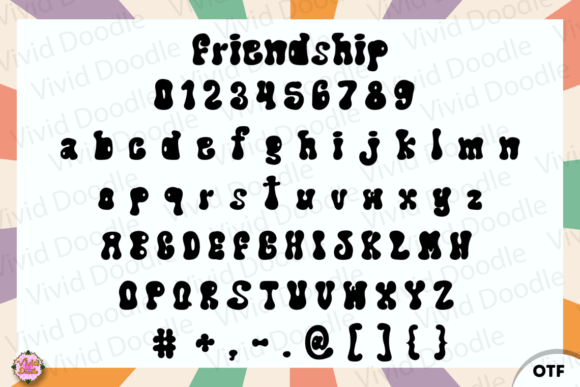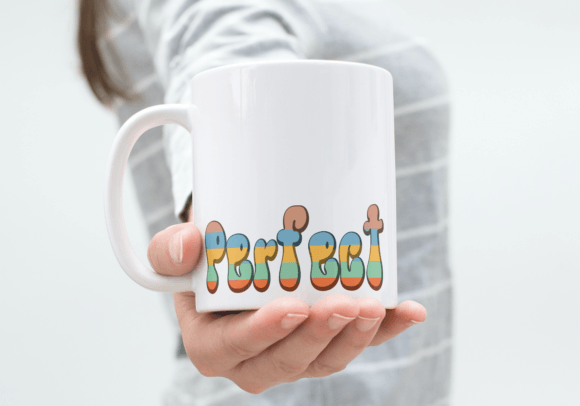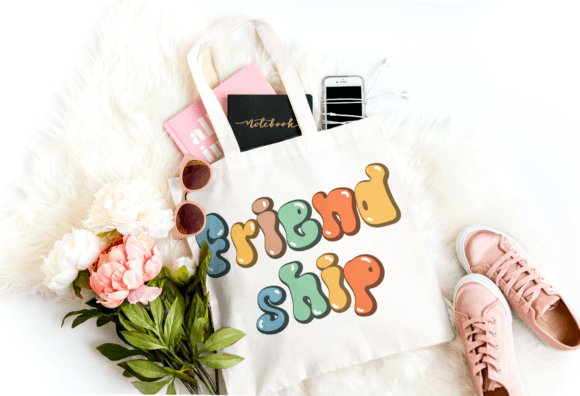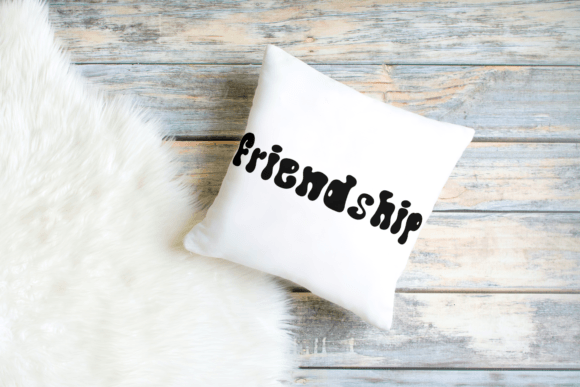
Embark on a Groovy Journey with the “Friendship” Font
Are you a designer or crafter looking to add a touch of retro hippie flair to your creative projects? Look no further than the “Friendship” font, a carefully crafted typeface that captures the essence of the hippie era. With its psychedelic and laid-back vibe, this font is perfect for infusing your art with a sense of peace, love, and artistic nostalgia.
The Quintessential Choice for Creative Retro Hippie Design
The “Friendship” font is the quintessential choice for creative retro hippie design. Its eclectic and friendly character makes it perfect for a wide range of projects, from posters and flyers to logos and branding materials. Whether you’re looking to create a vintage-inspired design or simply want to add a touch of retro flair to your artwork, this font is sure to deliver.
Immerse Your Artwork in Free-Spirited Vibes
The “Friendship” font is designed to transport you back to a time of free-spirited creativity and artistic expression. With its bold, colorful, and playful design, this font is sure to bring a smile to your face and inspire your creativity. Whether you’re a fan of the hippie era or simply looking for a unique and eye-catching font, “Friendship” is the perfect choice.
Key Features of the “Friendship” Font
- Psychedelic Design: The “Friendship” font features a bold, psychedelic design that’s sure to turn heads.
- Laid-Back Vibe: This font captures the laid-back, carefree spirit of the hippie era.
- Eclectic Character: The “Friendship” font has an eclectic, friendly character that’s perfect for a wide range of creative projects.
- Retro Flair: Add a touch of retro flair to your artwork with this vintage-inspired font.
The “Friendship” font is perfect for designers and crafters looking to add a unique and eye-catching element to their creative projects. Whether you’re working on a graphic design project, crafting a handmade card, or creating a piece of digital art, this font is sure to inspire your creativity.
Use the “Friendship” Font in a Variety of Projects
The “Friendship” font can be used in a wide range of creative projects, including:
- Posters and Flyers: Create eye-catching posters and flyers with a retro hippie vibe.
- Logos and Branding: Add a touch of retro flair to your logos and branding materials.
- Digital Art: Use the “Friendship” font to create unique and eye-catching digital art pieces.
- Handmade Crafts: Add a personal touch to your handmade crafts, such as cards, gift tags, and scrapbook pages.
With the “Friendship” font, you’re ready to elevate your designs and take your creative projects to the next level. Whether you’re a seasoned designer or just starting out, this font is sure to inspire your creativity and help you create unique and eye-catching artwork.
The “Friendship” font is a unique and eye-catching typeface that’s perfect for designers and crafters looking to add a touch of retro hippie flair to their creative projects. With its psychedelic and laid-back vibe, eclectic character, and retro flair, this font is sure to inspire your creativity and help you create unique and eye-catching artwork. Download the “Friendship” font today and start creating your own retro-inspired designs!